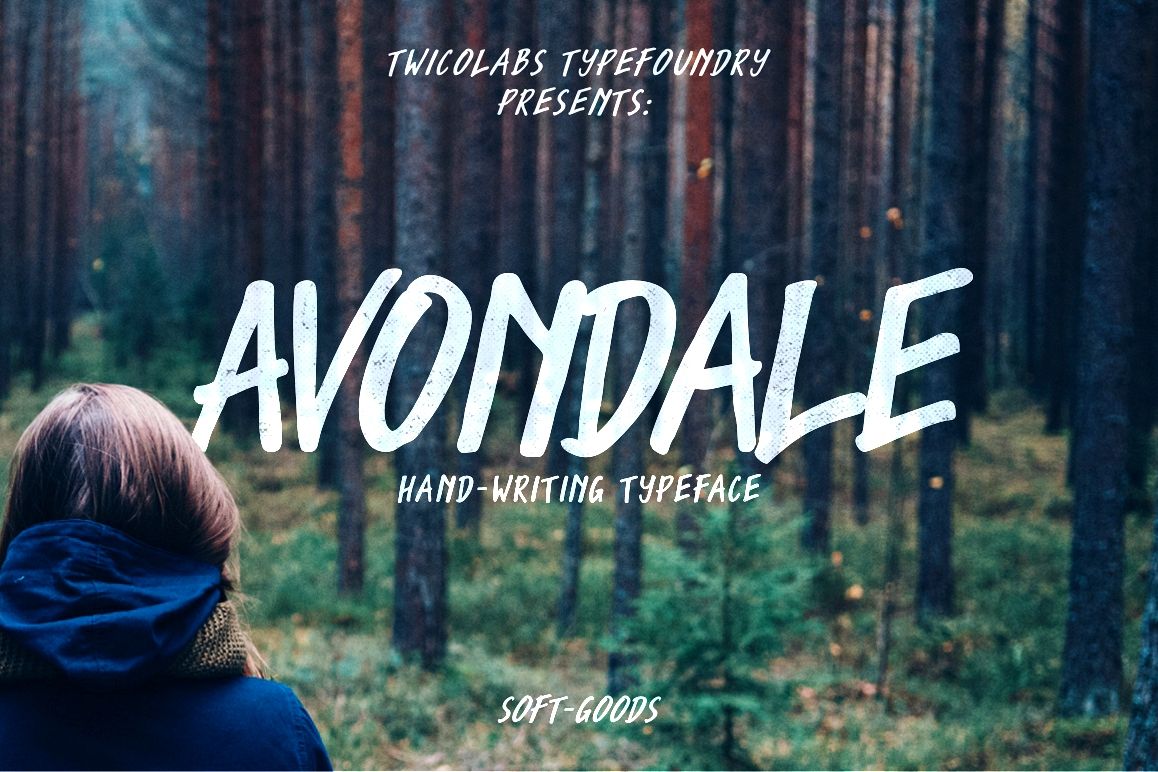
Avondale
Avondale.
Avondale Italic.
Avondale is an all-caps typeface based on my handwritings.
Vectorized/digitalized with high attention to the details and combined with various baseline height and combos of tight-loose kerning gives Avondale a natural handwriting feels.
Suits best for your designing projects that requires a unique handwriting touch.
Combine the upper and lower case to get more letter combinations.